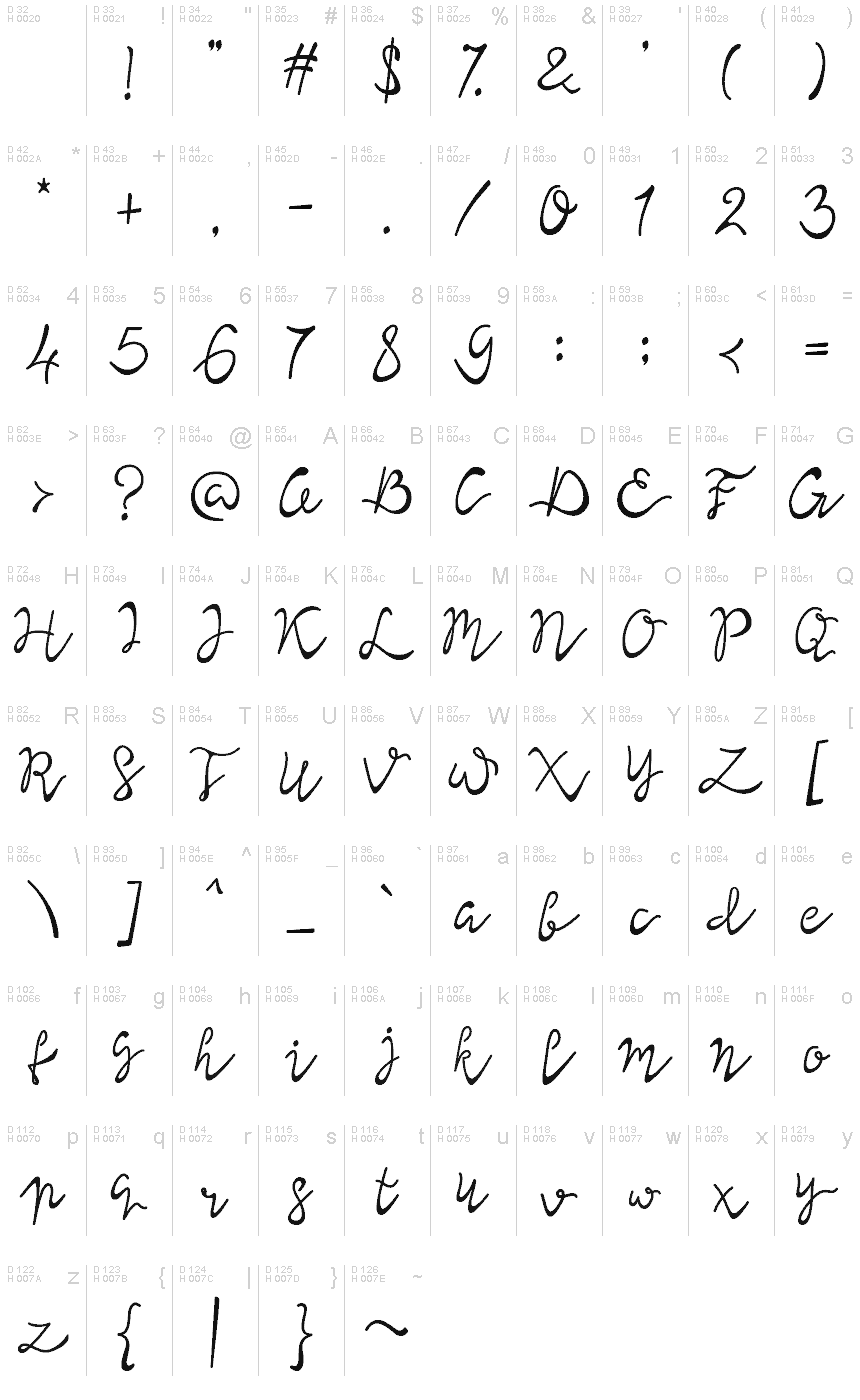
Lisna
Edric Studio
#Lisna# is a brand new font product from Edric.co. Designed by #Lisnawati# in #2017#. This font is #Handwriting type font#. It has regular and bold style.